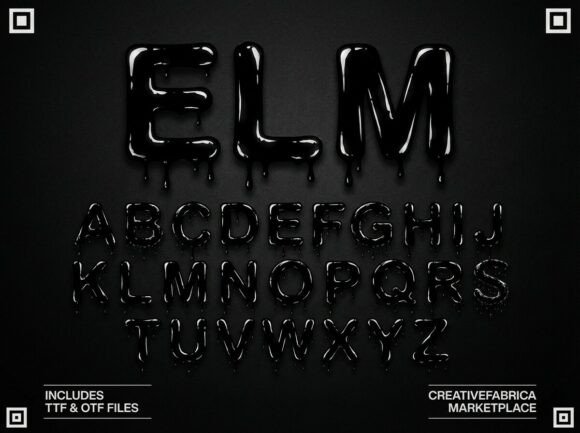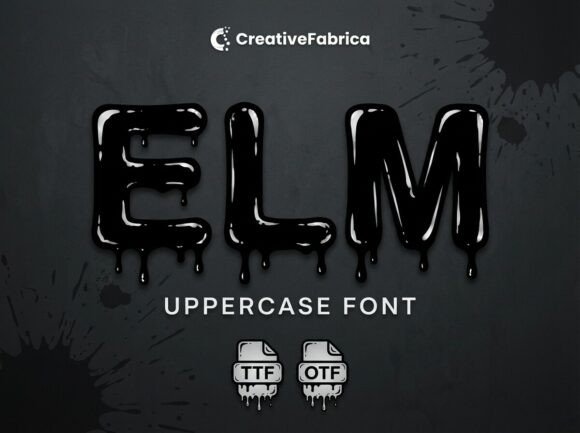
Unleashing the Darkness: A Deep Dive into Elm Font
I still remember the design project that led me to Elm Font. I was working on a horror movie poster, trying to create a title that would send chills down the spine. I scoured the internet for the perfect font, but nothing seemed to fit the bill. That was until I stumbled upon Elm Font. With its ultra-thick, rounded letterforms and high-gloss “onyx-oil” finish, it was love at first sight. In this article, I’ll share my experience with Elm Font, its features, and how to make the most of it in your designs.
A Designer’s Delight: What I Love About Elm Font
Elm Font is a game-changer for designers looking to add a touch of darkness to their work. Here are some features that I love:
- ✨ Visceral display font: Elm Font is designed to make a statement. Its ultra-thick, rounded letterforms are perfect for creating eye-catching titles and headers.
- ✅ High-gloss “onyx-oil” finish: The font’s glossy finish gives it a sleek, sophisticated look that’s perfect for horror movie titles, extreme alternative branding, and high-octane streetwear graphics.
- 🔥 Realistic dripping accents and viscous, bubbling textures: Elm Font’s attention to detail is impressive. The dripping accents and textures add a level of realism that makes the font stand out.
While Elm Font is an excellent choice for many design projects, it’s not without its quirks:
- 🤔 Limited use cases: Elm Font is a display font, which means it’s best used for headlines and titles. It may not be suitable for body text or smaller font sizes.
- ⚠️ Glyph limitations: While Elm Font has a range of glyphs and stylistic alternates, it may not have every character or symbol you need. Be sure to check the font’s capabilities before committing to a project.
The story behind Elm Font’s creation is shrouded in mystery, but it’s said that the designer was inspired by the dark and gritty world of horror movies and industrial design. The font’s unique blend of rounded letterforms and high-gloss finish is a testament to the designer’s attention to detail and commitment to creating something truly unique.
| Font Name | Elm Font |
| Author | grifvixcolor |
| What is Elm Font best used for? | Elm Font is best used for horror movie titles, extreme alternative branding, high-octane streetwear graphics, and cinematic “grunge-aesthetic” social media headers. |
| Can I use Elm Font for body text? | No, Elm Font is a display font and is best used for headlines and titles. It may not be suitable for body text or smaller font sizes. |